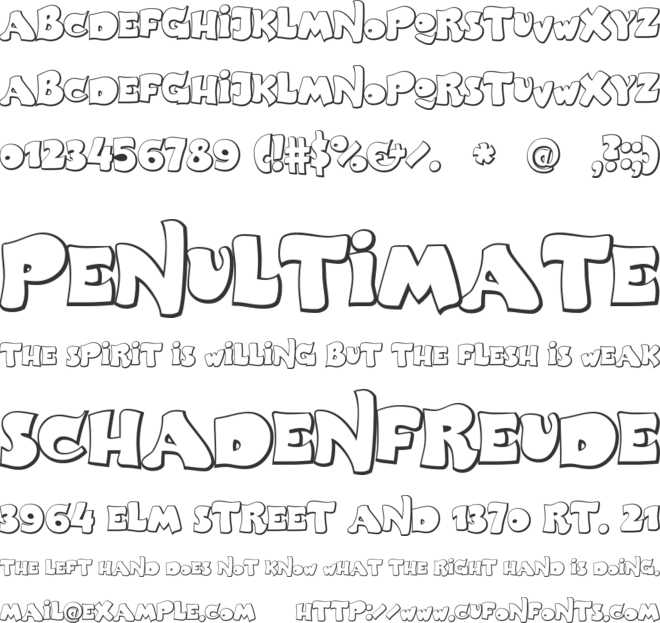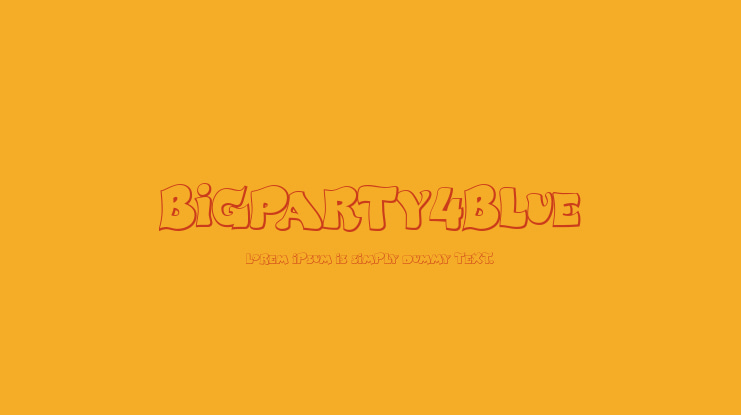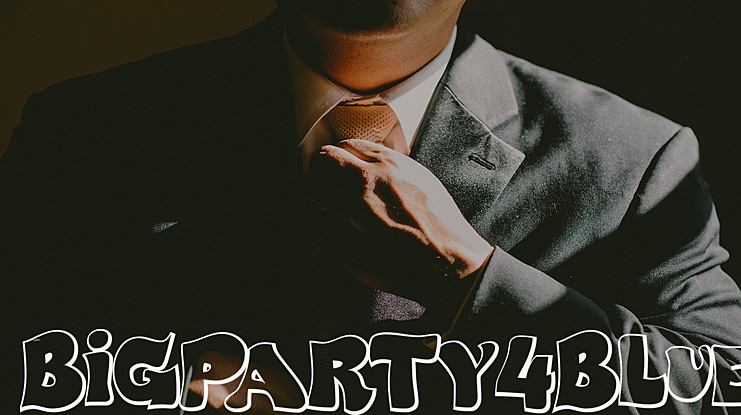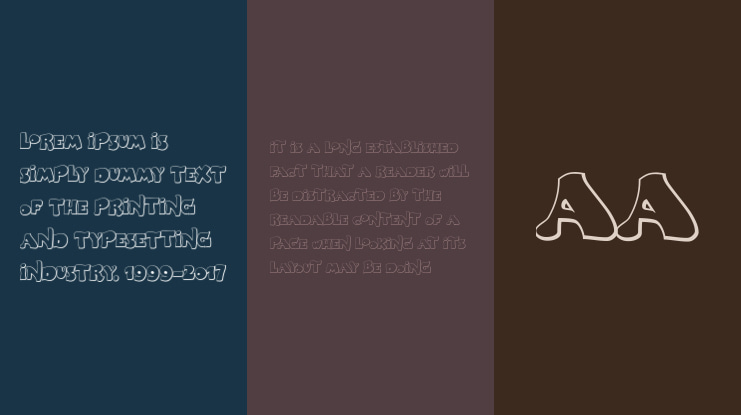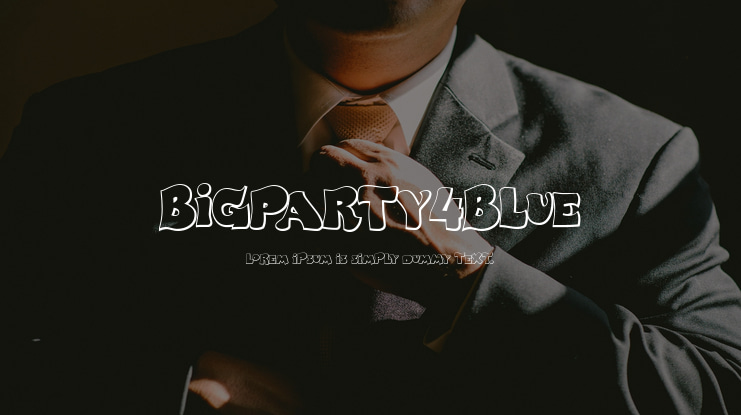
BigParty4Blue Font
Exper­i­men­tal, color font BigParty4-Blue in two for­mats (in one file): Open­Type-SVG and COLRv1. To be able to use the color fonts you need to have installed Adobe Phở­to­shop CC2017, Adobe Illus­tra­tor CC2018, InDe­sign CC2019, Mozilla Fire­fox, Chrome, Opera or Microsoft Edge.